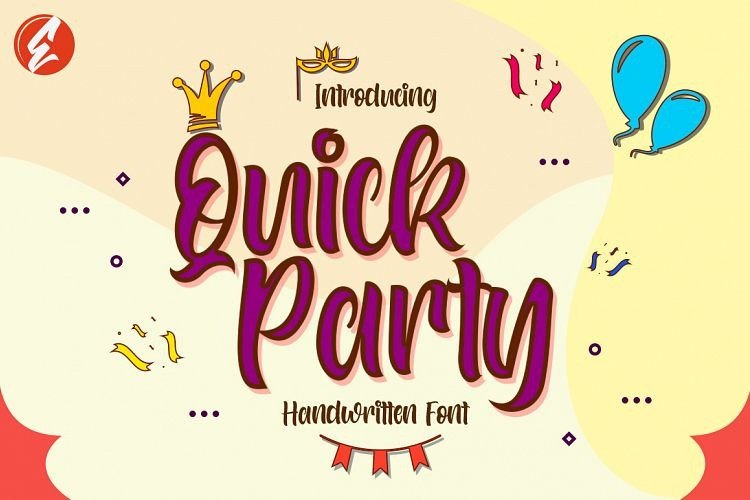
Quick Party Script Font
Quick Party Font is a modern Handwritten typeface, beautiful and luxurious. This elegant and beautiful font is stylish and versatile so you can use in a plethora of designs in both digital and print applications.